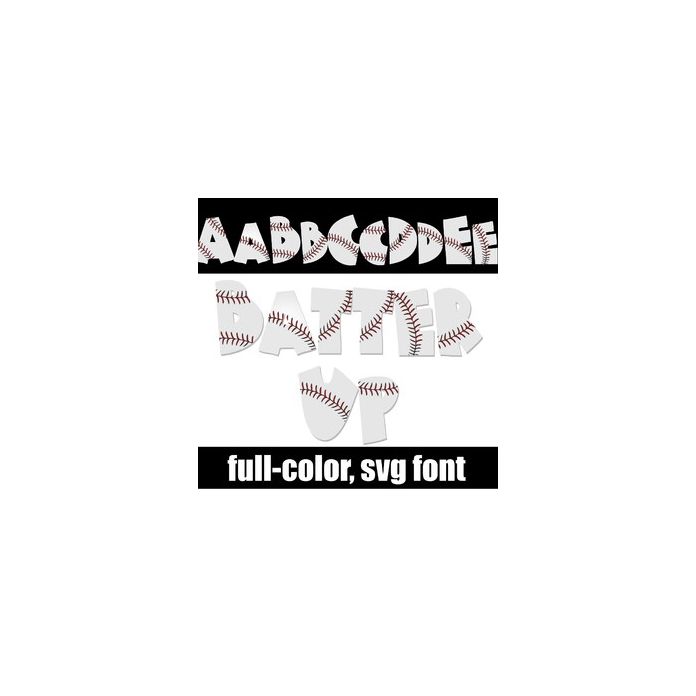
This full color font looks like baseballs. This font works best for titles, displays, posters and more. Please note color fonts will show as black in non compatible programs. This font type is compatible with Silhouette Studio.